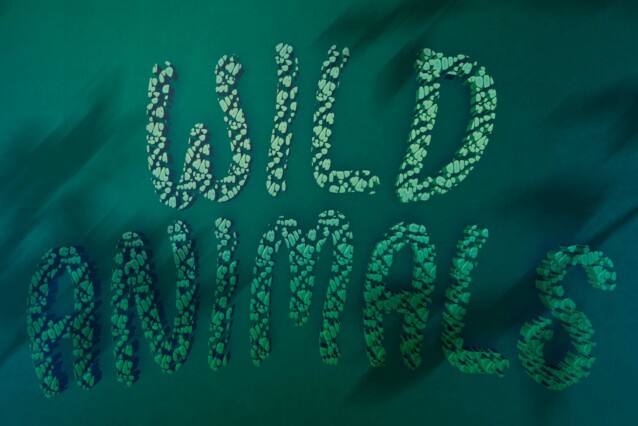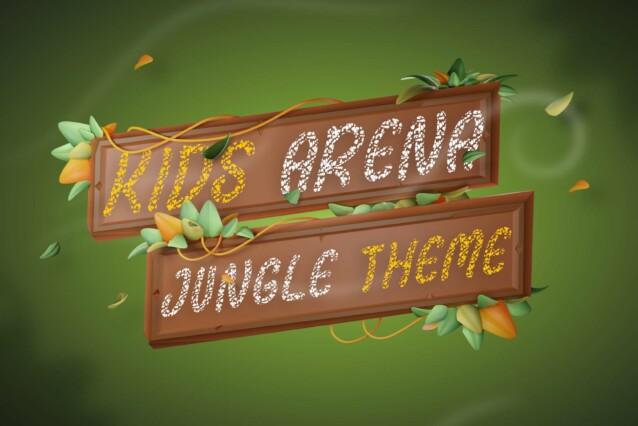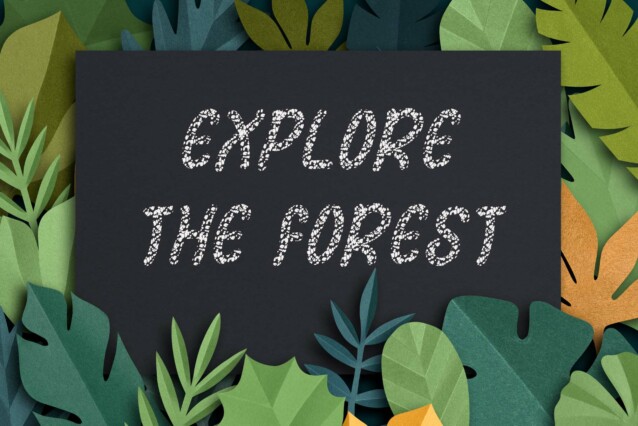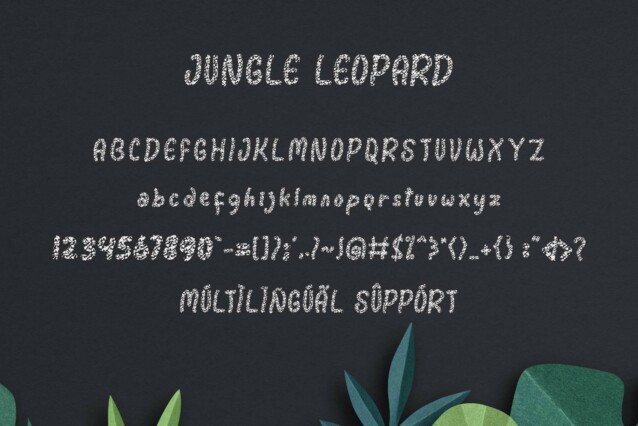
Jungle Leopard Font
Jungle Leopard Font is a fun and spooky display font perfect for any Halloween design you wish to bring to life! Add it to your creative projects, and you will love the results!